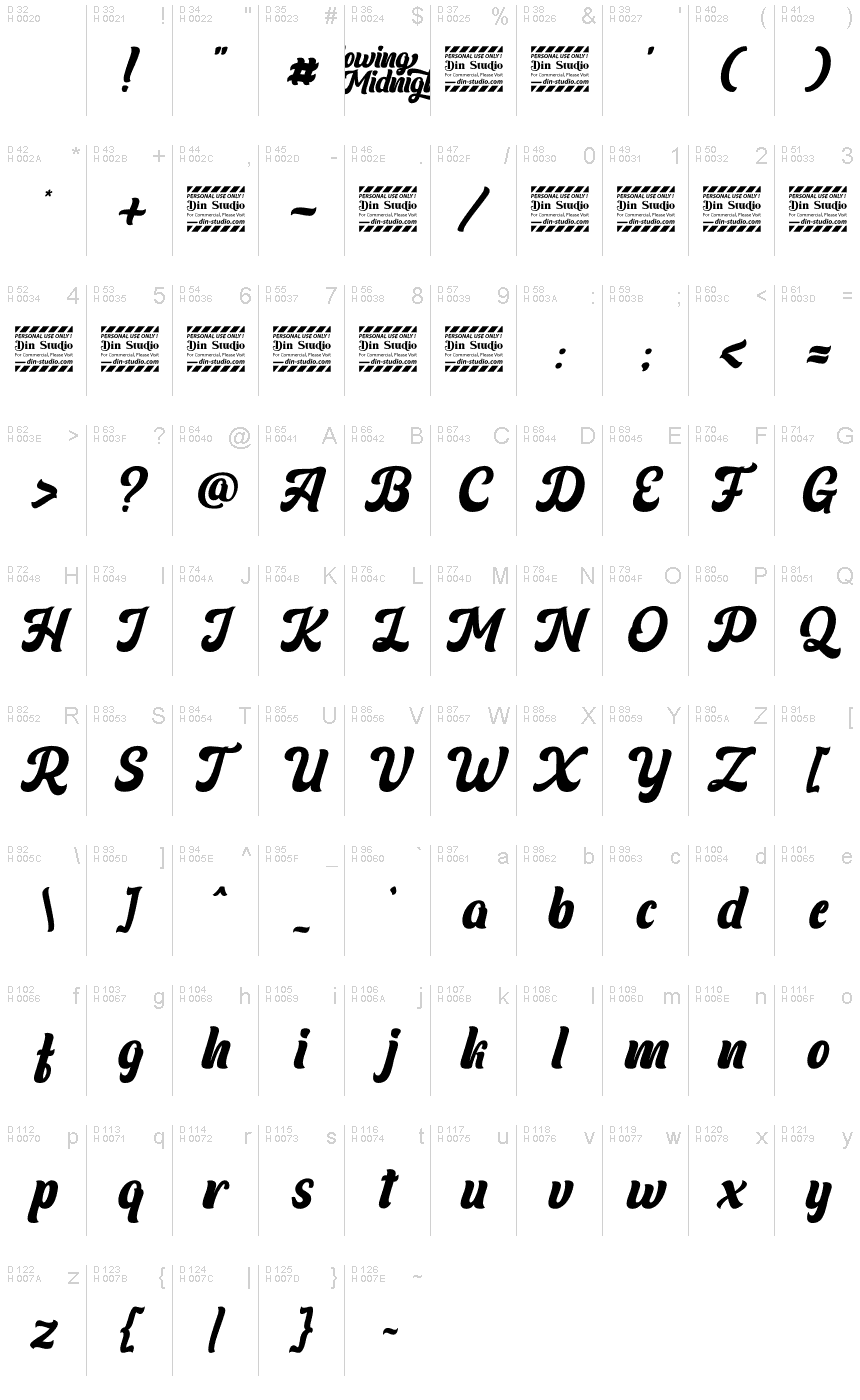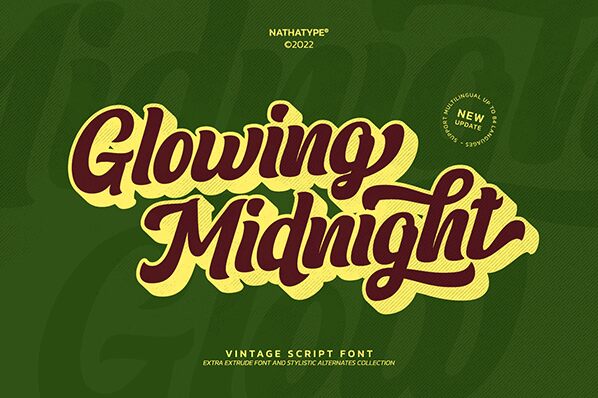
Glowing Midnight Personal Use
Glowing Midnight is a stunning semi-bold font designed by Din Studio. Its vintage brush style gives it a unique, eye-catching look that is perfect for a wide range of projects. Whether you're designing a retro logo, creating an elegant wedding invitation, or crafting a stylish poster, Glowing Midnight is sure to impress. This versatile font can be used for both print and digital design, making it perfect for everything from business cards to social media graphics. With its bold lines and sophisticated curves, Glowing Midnight will add the perfect touch of elegance to any project.